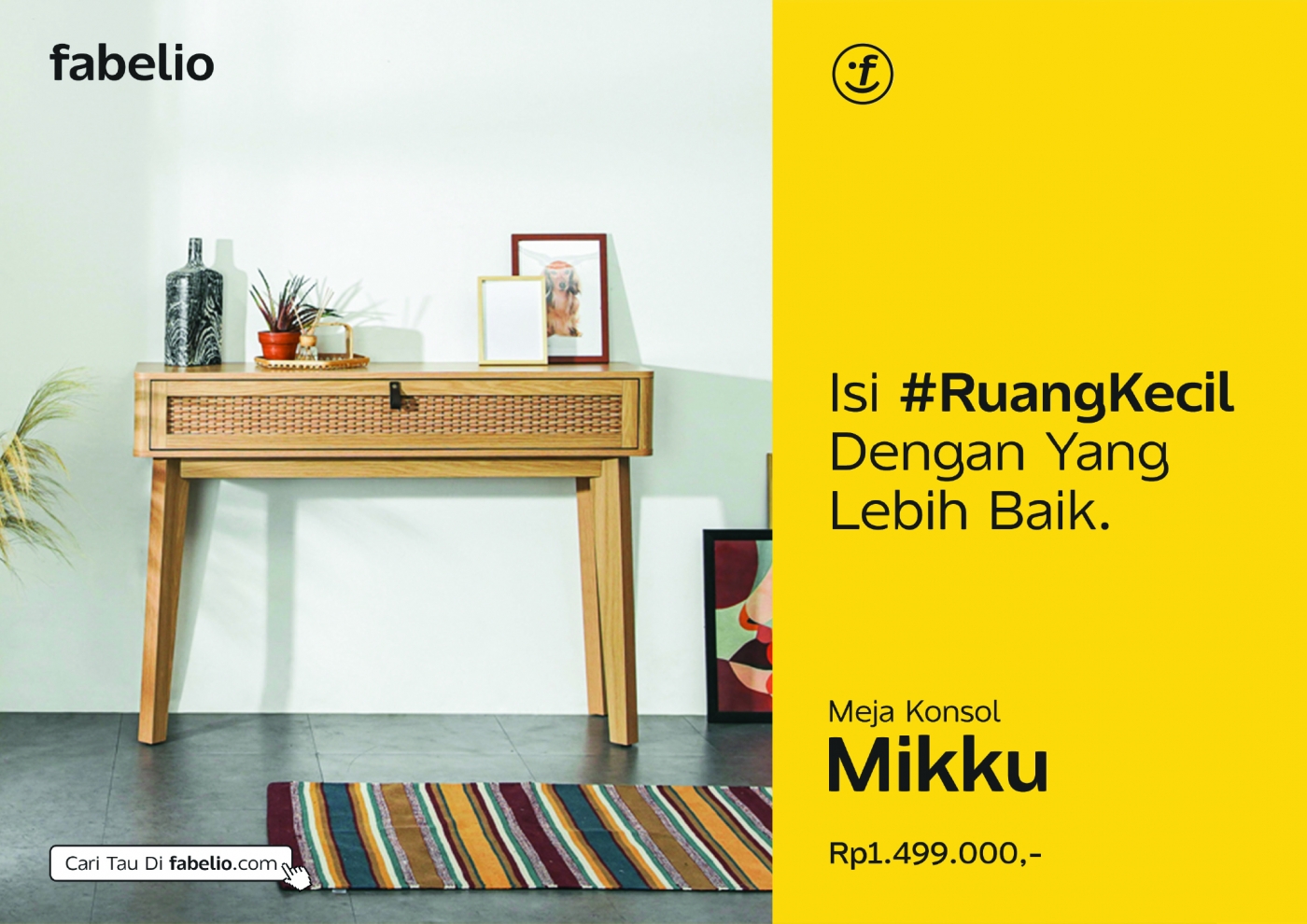
Fabelio is the region’s leading tech-enabled home & living retail company based in Indonesia, in addition to the new refreshment of their identity, Fabelio family was born to accompany the design tool of the brand itself, with crossbreed between Germanish Grotesk on the solid appearance and sophisticated look and feel on the contrast.
The Fabelio family designed to meets requirements between functionality and expressiveness, with subtle details such as a softened rounded touch on each character mixed with heavy contrast. To maintain the quality of the type-family, the Variable fonts format equipped to enhance the flexibility on every medium, in that case, the built-in weights itself starting from the thinnest stroke into the fattest looks.